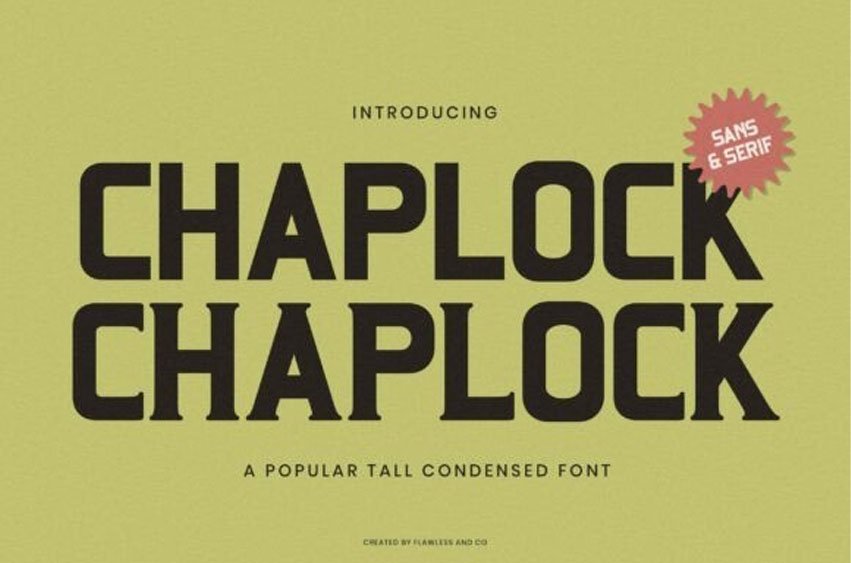
Chaplock Font
Chaplock Font is a bold and modern typeface that fuses the sharpness of condensed sans serif with refined serif details. Its tall, narrow letterforms and geometric precision make it perfect for headlines, posters, branding, and logotypes that demand a strong visual impact.
With a sleek yet confident style, Chaplock adds power and personality to designs in fashion, sports, streetwear, and beyond.